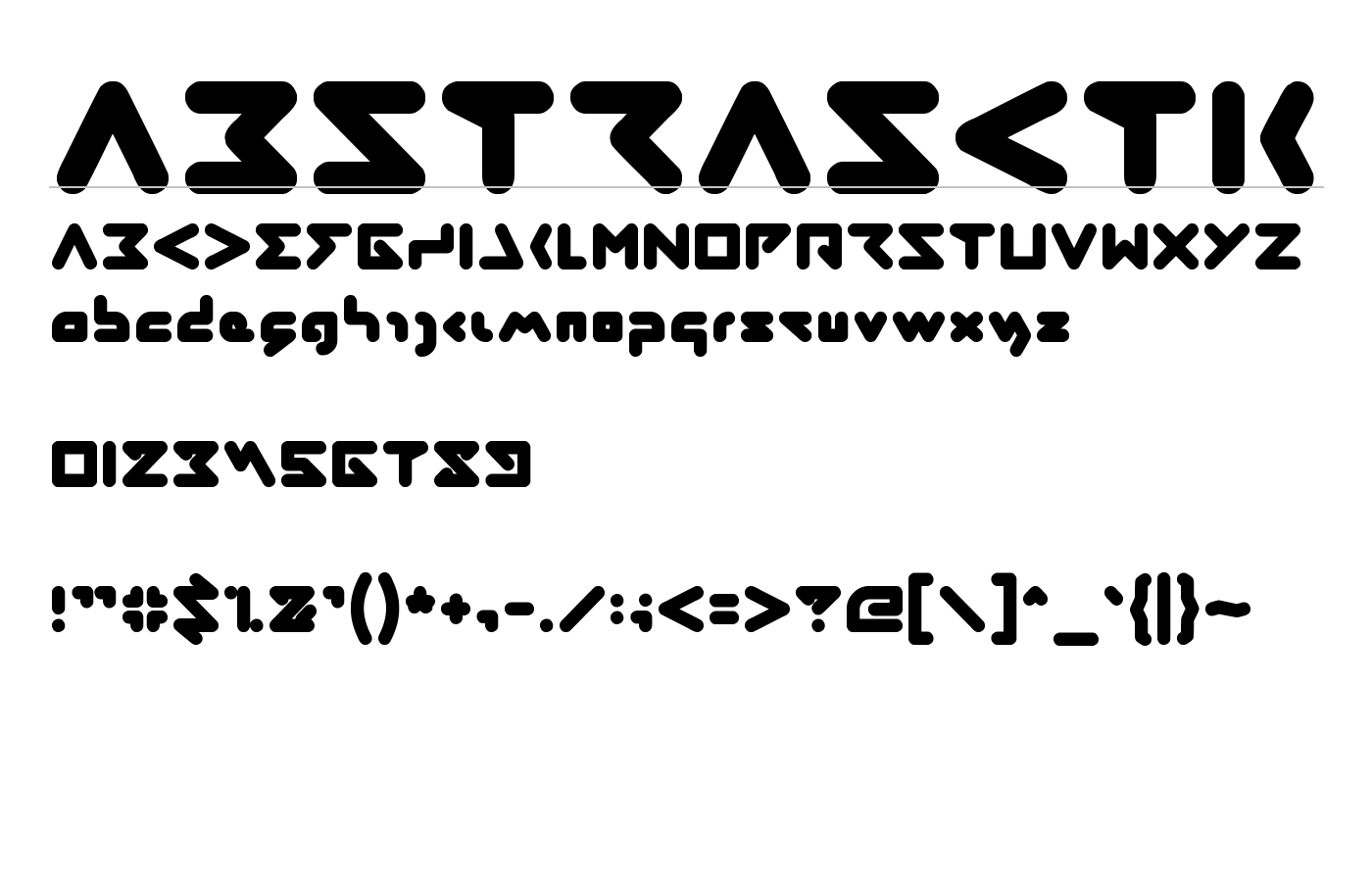
ABSTRASCTIK is a bold, geometric sans serif font with a futuristic and abstract style. Its rounded corners and unusual angular shapes create a playful yet tech-savvy vibe, making it perfect for modern branding, posters, and creative digital projects that want to stand out. This font works best in display use where its distinct character shapes can draw attention and add a unique personality.
ABSTRASCTIK Font